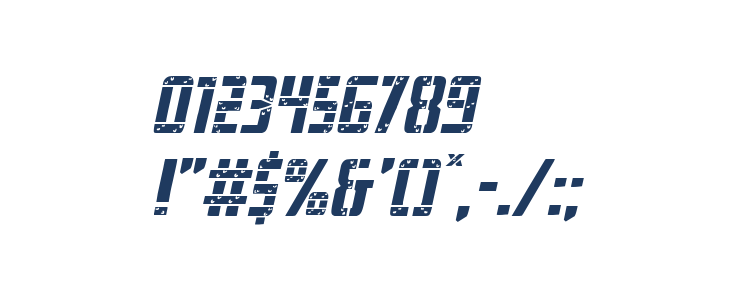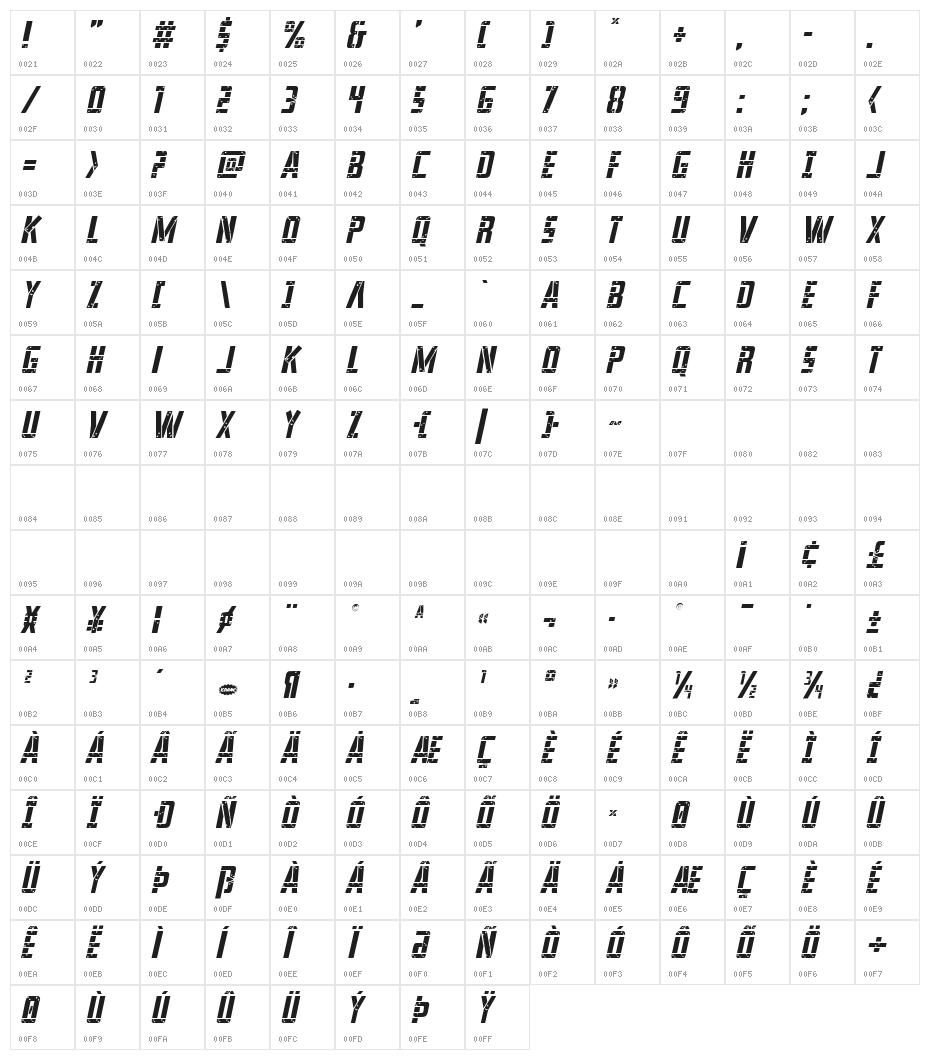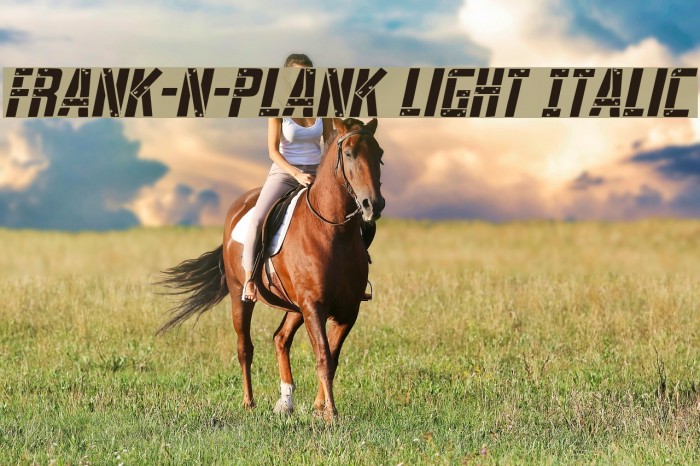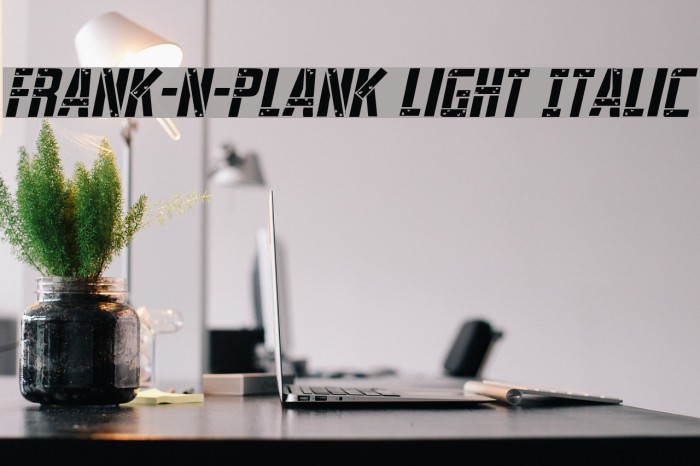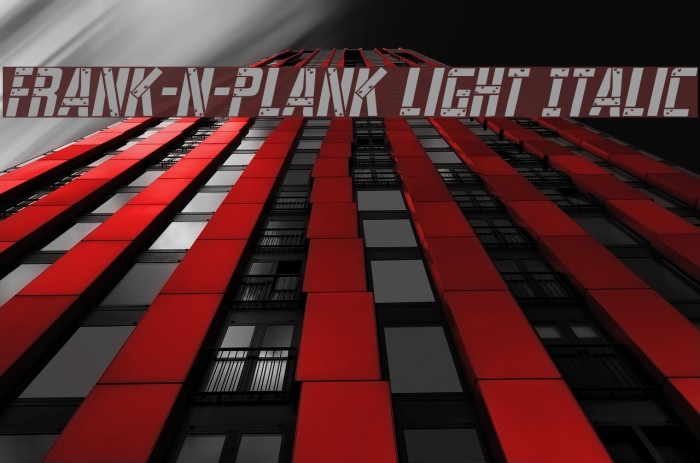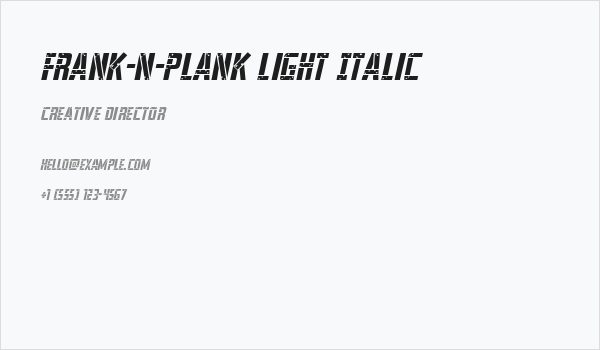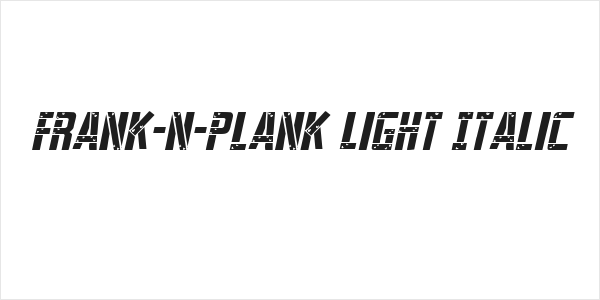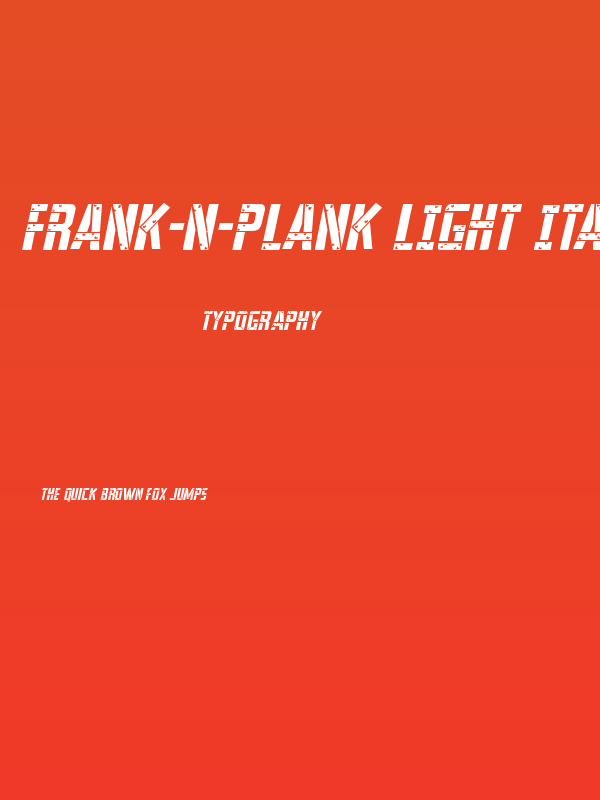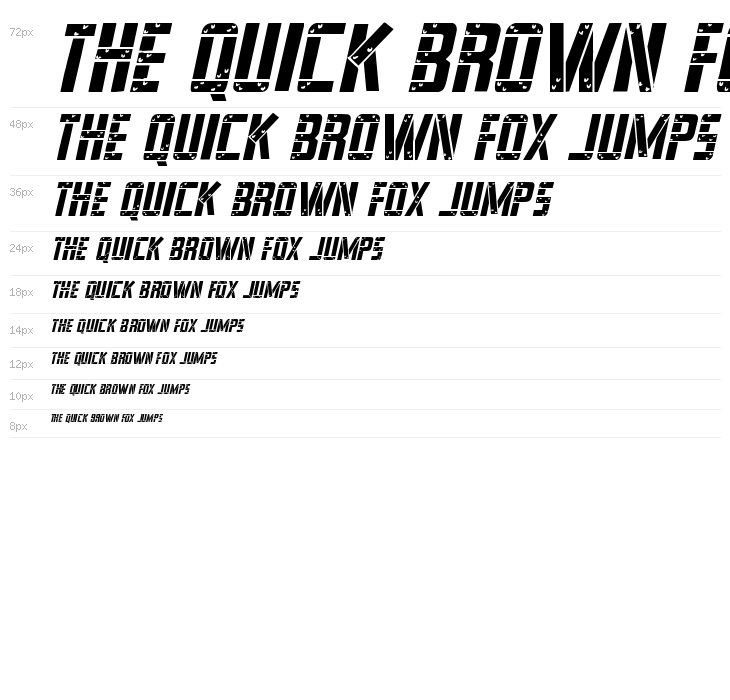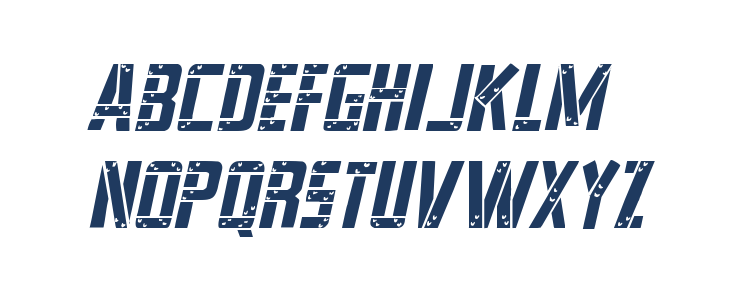
Frank-n-Plank Light Italic Font
Frank-n-Plank Light Italic Description
This font features a bold and dynamic design with a unique stencil-like appearance. The characters are constructed with solid, angular shapes that are interrupted by evenly spaced cutouts, giving it a mechanical and industrial feel. The italic slant adds a sense of motion and energy, making it stand out in any design. The uppercase and lowercase letters maintain a consistent style, while the numerals and special characters complement the overall aesthetic. This font is ideal for projects that require a modern and edgy look.
| Proposed Projects | Ideal for branding, posters, and any design that requires a modern, edgy aesthetic. |